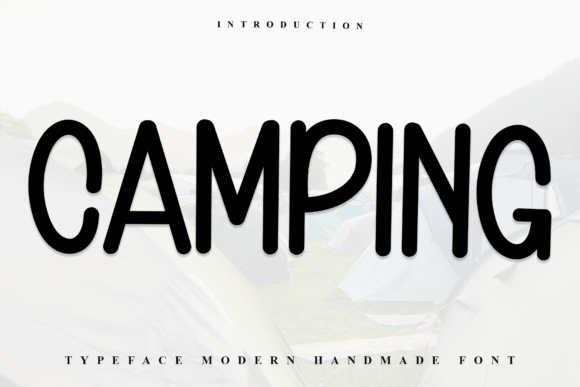
The Great Outdoors, In Type: Discovering the Charm of Camping Font
I still remember the design project that led me to discover the Camping font. I was working on a branding campaign for a new outdoor gear company, and I was struggling to find the perfect font that captured the essence of adventure and freedom. That’s when I stumbled upon Camping, and it was love at first sight! ✨ The fluid strokes, the organic lines, and the overall laid-back vibe instantly resonated with me. In this article, I’ll share my experience with Camping font, its features, and how to make the most of it in your design projects.
An Honest Review of Camping Font
- ✨ Fresh and casual elegance: Camping font is perfect for designs that require a touch of warmth and personality.
- ✅ Highly versatile: It works well for branding, invitations, social media graphics, and more.
- 🌟 Unique character: The font’s fluid strokes and organic lines set it apart from other sans-serif fonts.
While Camping font is amazing, it’s not perfect. ⚠️ Here are a few things to keep in mind:
- 🤔 Limited use in formal designs: Camping font is best suited for casual and laid-back designs. It might not be the best choice for formal or corporate projects.
- ⚠️ Limited glyphs: While the font has a range of glyphs, it might not have everything you need for a specific project.
The Story Behind Camping Font
Camping font was designed with the great outdoors in mind. Its creator wanted to capture the essence of adventure and freedom in a font that’s both fresh and elegant. The result is a font that’s perfect for designs that require a touch of warmth and personality.
Q: What is Camping font?
A: Camping font is a charming sans-serif font with a fresh and casual elegance.
Q: What design projects is Camping font best suited for?
A: Camping font is perfect for designs that require a touch of warmth and personality, such as branding, invitations, and social media graphics.